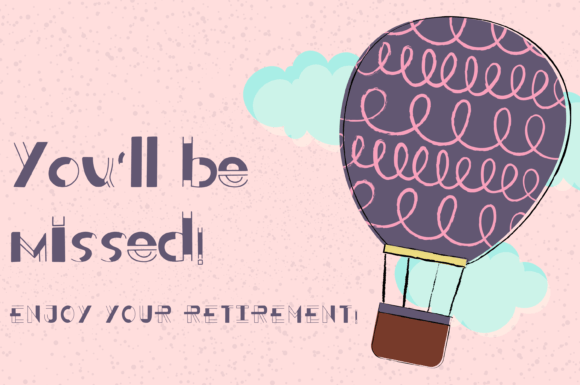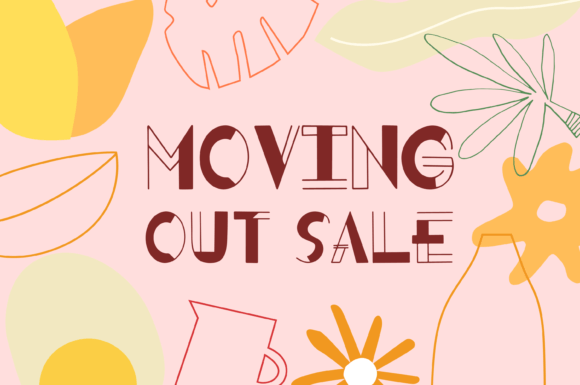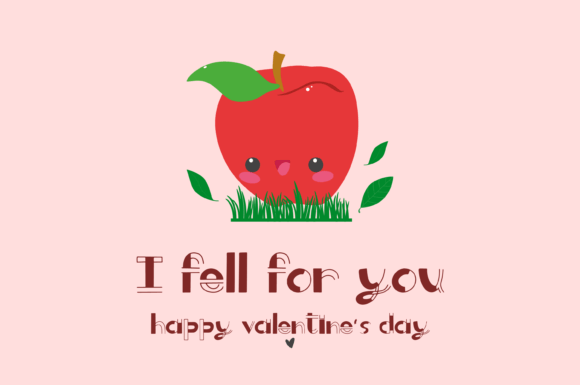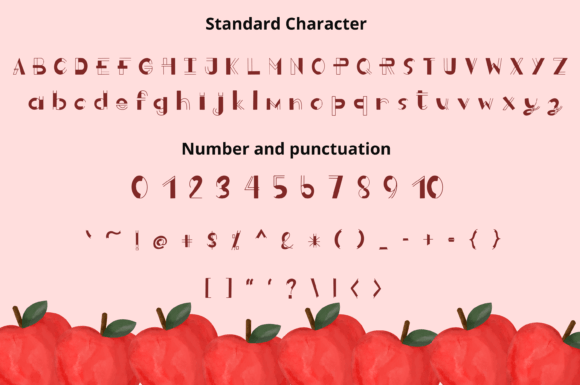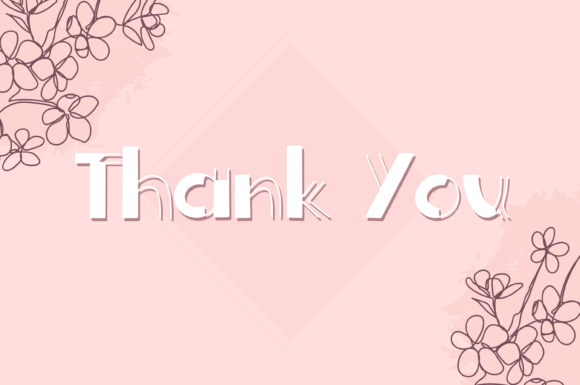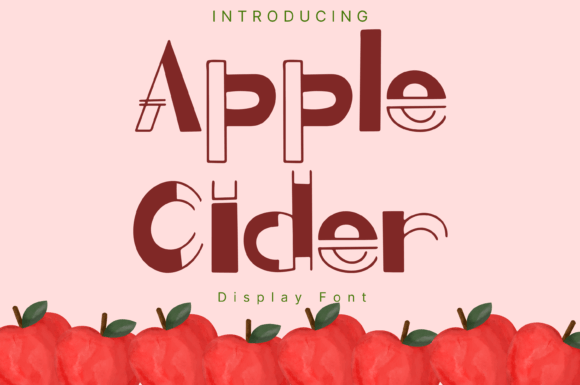
Introducing Apple Cider Font: The Perfect Addition to Your Creative Projects
Are you a designer, crafter, or DIY enthusiast looking for a unique and eye-catching font to elevate your creative projects? Look no further than Apple Cider Font, a whimsical and clean decorative font that’s sure to make your designs stand out. In this article, we’ll take a closer look at the features and benefits of Apple Cider Font, and explore how it can be used to add a touch of personality to your projects.
A Whimsical and Clean Decorative Font
Apple Cider Font is a beautifully designed font that’s perfect for adding a touch of whimsy and charm to your projects. Its clean and elegant lines make it easy to read and versatile enough to be used in a wide range of applications, from crafting and DIY projects to digital designs and branding materials. Whether you’re creating invitations, signs, or social media graphics, Apple Cider Font is sure to add a touch of personality and style.
Matching Apple Cider Font to Your Projects
One of the best things about Apple Cider Font is its incredible versatility. It can easily be matched to an incredibly large set of projects, making it the perfect addition to your creative toolkit. Here are just a few ideas for how you can use Apple Cider Font in your projects:
- Crafting and DIY projects: Use Apple Cider Font to add a personal touch to your crafting and DIY projects, such as handmade cards, gift tags, and signs.
- Digital designs: Add Apple Cider Font to your digital designs, such as social media graphics, blog posts, and email newsletters, to give them a touch of personality and style.
- Branding materials: Use Apple Cider Font in your branding materials, such as logos, business cards, and brochures, to create a unique and memorable visual identity.
- Invitations and events: Use Apple Cider Font to create beautiful and eye-catching invitations for parties, weddings, and other special events.
Why Choose Apple Cider Font?
So why choose Apple Cider Font for your creative projects? Here are just a few reasons why this font stands out:
- Unique and eye-catching: Apple Cider Font is a unique and eye-catching font that’s sure to make your designs stand out.
- Versatile: Apple Cider Font can be used in a wide range of applications, from crafting and DIY projects to digital designs and branding materials.
- Easy to read: Despite its decorative nature, Apple Cider Font is easy to read and understand, making it perfect for use in a variety of contexts.
- Whimsical and charming: Apple Cider Font has a whimsical and charming quality that’s sure to add a touch of personality to your designs.
Tips for Using Apple Cider Font
Here are a few tips for using Apple Cider Font in your creative projects:
- Use it sparingly: While Apple Cider Font is beautiful and eye-catching, it can be overwhelming if used too much. Use it sparingly to add a touch of personality to your designs.
- Pair it with other fonts: Apple Cider Font pairs well with a variety of other fonts, so don’t be afraid to experiment with different combinations.
- Experiment with colors: Apple Cider Font looks great in a variety of colors, so don’t be afraid to experiment with different color schemes.
Apple Cider Font is a beautiful and versatile font that’s perfect for adding a touch of personality and style to your creative projects. Its whimsical and clean design makes it easy to read and versatile enough to be used in a wide range of applications. Whether you’re a designer, crafter, or DIY enthusiast, Apple Cider Font is sure to become a favorite in your creative toolkit. So why wait? Download Apple Cider Font today and start adding a touch of charm and whimsy to your designs!